looking to identify the typeface used for the blurb in the bottom left corner and the hours. 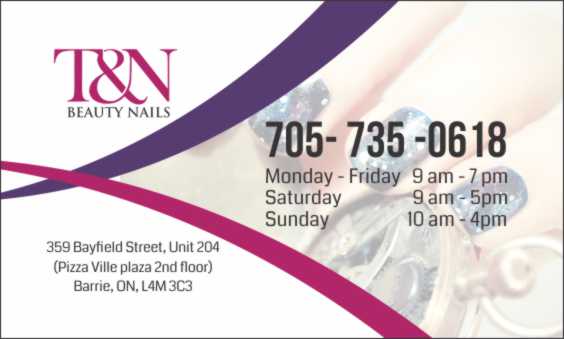
Possibly Bunday Sans Light Up?
Probably not, though, because of the descenders.